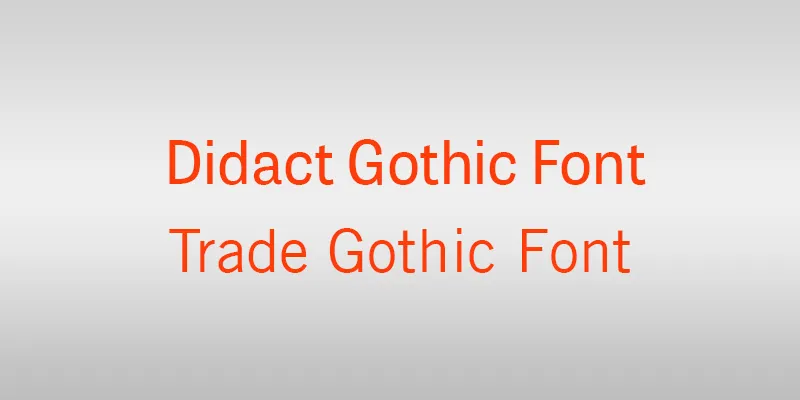
Trade Gothic is a sans serif font family that was designed by Jackson Burke in 1948 for Linotype. It is one of the most popular fonts in the world, especially in advertising, journalism, and branding. Trade Gothic has a distinctive and versatile appearance, with a range of weights, widths, and styles. It is also compatible with many other fonts, making it a great choice for font pairing.
Trade Gothic font combines the simplicity and clarity of a grotesque typeface with humanist touches. It has a large x-height, narrow proportions, and tight letter spacing. It also has some quirky features, such as the angled terminals of the lowercase a and t, the curved tail of the uppercase Q, and the irregular stroke contrast.
Trade Gothic has 14 styles, including regular, bold, condensed, extended, and oblique versions. The font supports Basic Latin, Latin Extended-A, Spacing Modifier Letters, General Punctuations and more. Trade Gothic has over 200 glyphs per style, including ligatures, alternates, fractions, and symbols. The Adobe font family also provided this font for free to Creative Cloud customers.
Effectivity of Trade Gothic Font
Trade Gothic Font is suitable for industries such as media, finance, technology, sports, fashion, and entertainment. An American skateboard market called Zoo York uses the Trade Gothic Pro Bold Condensed #20 font for their logo.
Font Adaptations
Trade Gothic Next (2009)
With the debut of Trade Gothic Next, Trade Gothic underwent a modernization. This redesign was conceptualized by Akira Kobayashi and Tom Grace and released by Linotype in February 2009. Their main objective was to fix the problems the original family had with consistency. Reworked designs as a result, with improved spacing, kerning, and terminals and stroke endings. With four weights and three widths, the family now has 17 fonts.
Trade Gothic Next Rounded (2009)
Building on the popularity of Trade Gothic Next, Trade Gothic Next Rounded was released in 2009 as a rounded, softened version of the original. This variation maintains Trade Gothic’s essential characteristics while presenting a softer aesthetic, making it appropriate for a wider range of applications.
Trade Gothic Display (2017)
Trade Gothic Display was established in 2017. This variant was created by Lynne Yun of Monotype GmbH and is based on Trade Gothic Condensed Heavy. However, only capital glyphs are used in its design for Latin texts. The family consists of five fonts, each with a single weight and width but five different glyph outline styles. Layering is possible with this design, resulting in intricate and complex visual effects.
Fonts Similar to Trade Gothic Font
If you are looking for fonts that are similar to Trade Gothic Font, you can check out these alternatives:
A contemporary sans serif font family that has 84 styles. It is designed by Veronika Burian and José Scaglione for TypeTogether.
A sans serif font that has a single regular style and supports over a hundred languages. This OFL typeface is designed by Daniel Johnson.
A sans serif font that has four styles (regular, italic, condensed regular, and condensed italic). It is designed by The League of Moveable Type as a revival of Alternate Gothic No.1 by Morris Fuller Benton.
A sans serif font designed by Morris Fuller Benton for American Type Founders in 1930.
A sans serif font that has five styles (regular, wide, expanded, compressed, and narrow). It is designed by the Ash Pikachu Font.
Font Pairing
Trade Gothic Font can be paired with many other fonts to create a harmonious and balanced typography. Here are some suggestions for font pairing:
A geometric sans serif font family that has 48 styles designed by Mark Simonson for Adobe Fonts.
A humanist sans serif font family that has 19 styles. It is designed by Adrian Frutiger for Linotype.
A serif font family that has 41 styles. It is designed by Firmin Didot for Linotype.
Trade Gothic Font is a classic sans serif typeface that has a distinctive and versatile appearance. It is one of the most popular fonts in the world, especially in advertising, journalism, and branding. It can be used for various purposes and contexts, and it can be paired with many other fonts. You can download it for free from our website or use our generator to create a preview.